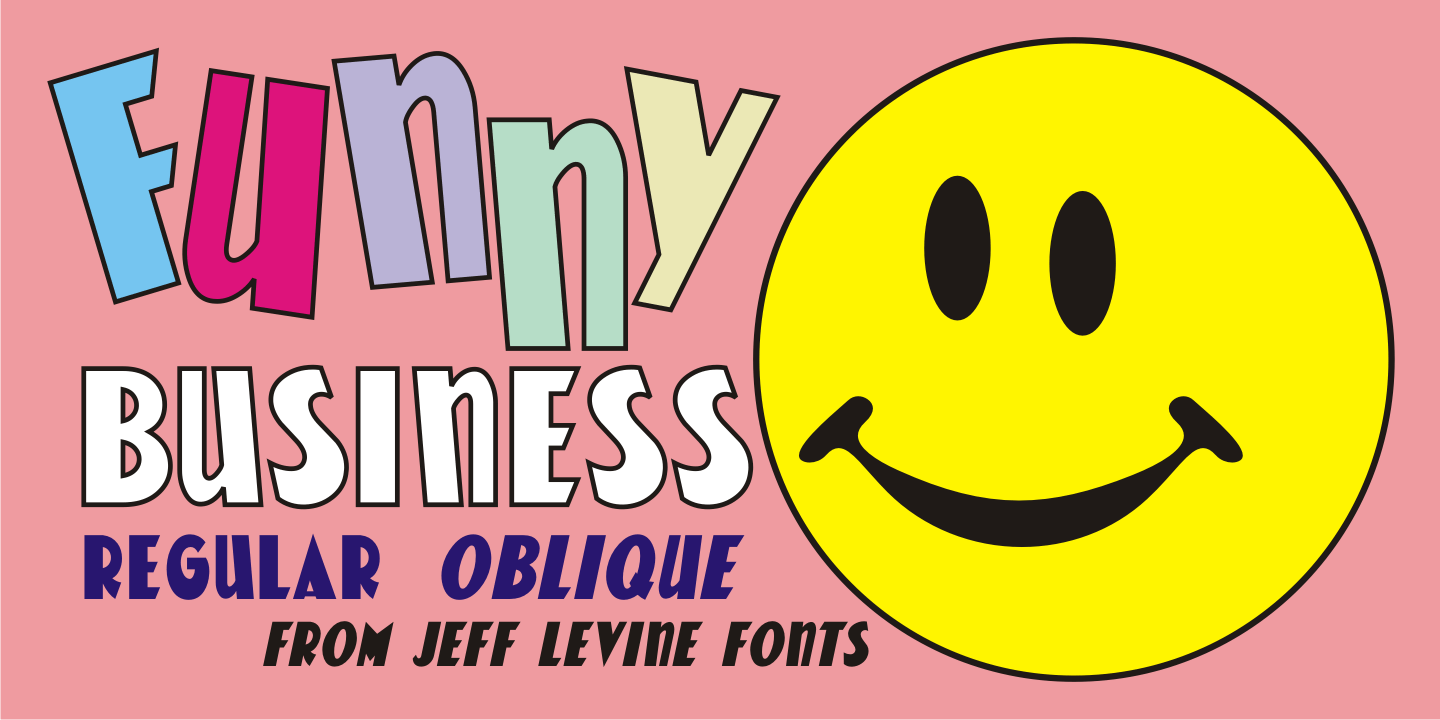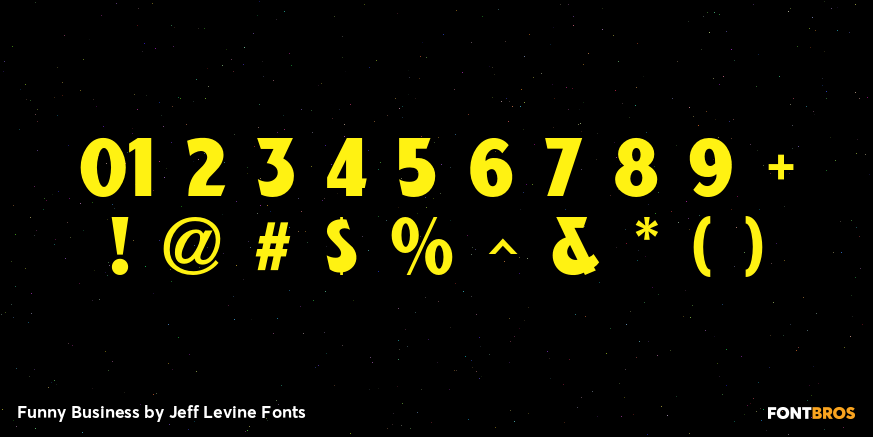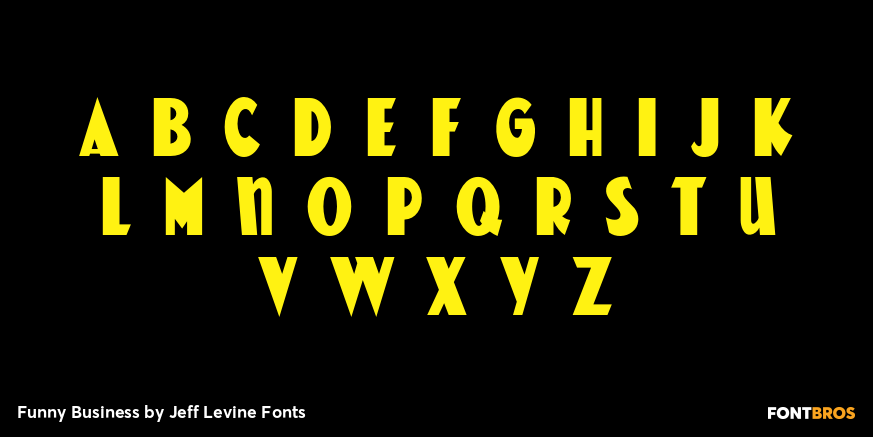
Funny Business
Buy NowThe hand lettered title on the sheet music for 'Gee, But I'd Like to Make You Happy” (from the 1930 MGM motion picture 'Good News”) presented a conundrum.
Some of the lettering was a classic Art Deco 'thick and thin” design while the others resembled comic book title lettering.
Leaning toward the comic book style, the conflicting letters were revised and the finished result became Funny Business JNL; available in both regular and oblique versions.